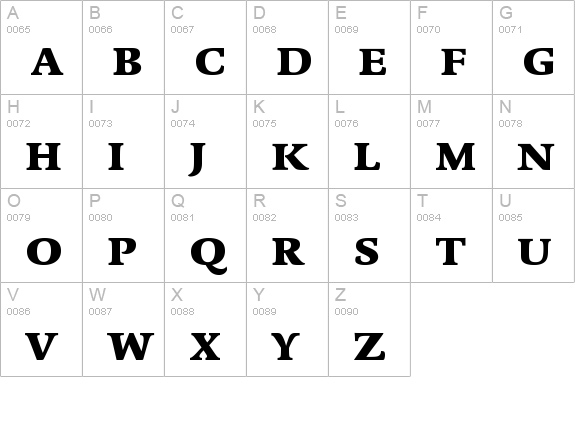
DTLDorianST-Heavy is a heavy, high-impact variant in the DTLDorianST typeface family \xE2\x80\x94 well suited to high-impact headlines, posters, and display advertising.
DTLDorianST-Heavy is a bold and eye-catching font that demands attention with its strong and powerful presence. This heavy typeface is ideal for making a statement in headlines, titles, and other prominent text elements. Its clean and modern design exudes confidence and sophistication, making it a versatile choice for a wide range of design projects. What makes DTLDorianST-Heavy even more appealing is that it is available for free download at FontsMarket.com. This means you can easily access this high-quality font without any cost, making it a valuable addition to your font collection. Whether you're working on branding materials, posters, or social media graphics, DTLDorianST-Heavy is sure to elevate your designs and leave a lasting impression on your audience.